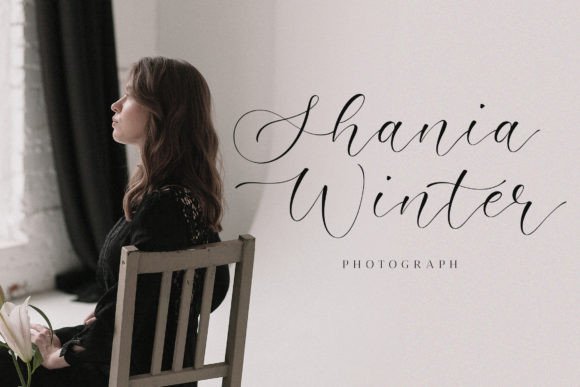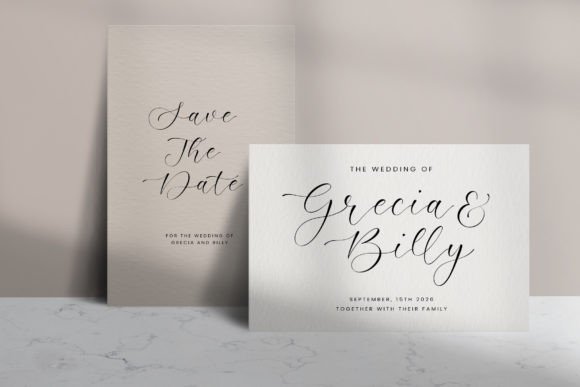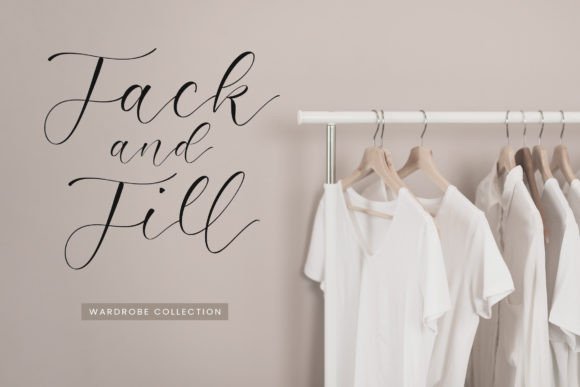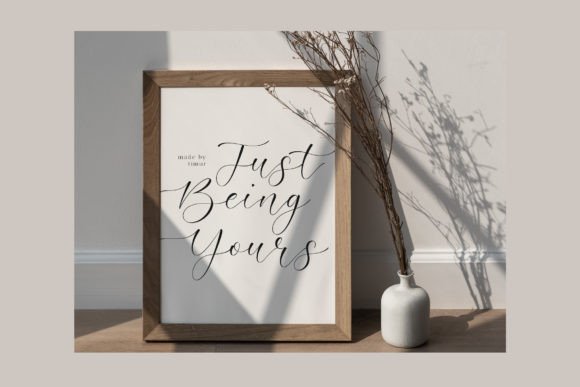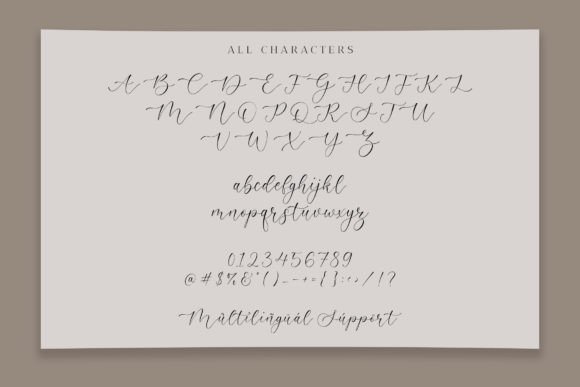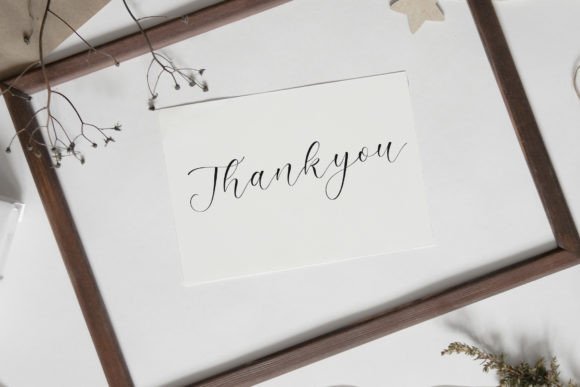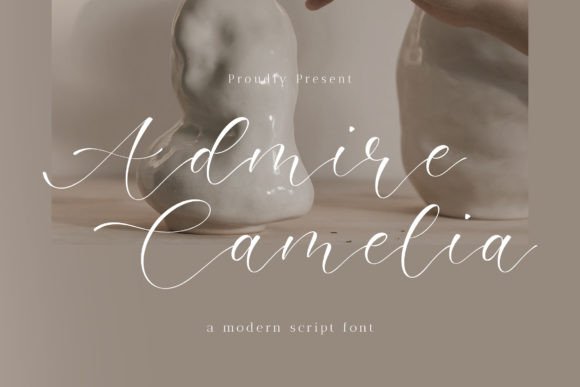
Introducing Admire Camelia: A Stylish Handwritten Script Font
Are you tired of using the same old fonts in your designs? Look no further than Admire Camelia, a beautiful handwritten script font that is sure to elevate your creations. With its delicate, feminine energy, this font is perfect for designers and crafters looking to add a touch of elegance to their work.
What is Admire Camelia?
Admire Camelia is a stylish handwritten script font that is designed to exude a sense of sophistication and refinement. Its delicate lines and curves make it perfect for use in a variety of design projects, from wedding invitations and branding materials to packaging and digital graphics.
Key Features of Admire Camelia
- Handwritten script font: Admire Camelia is a true handwritten script font, with each letter and character carefully crafted to create a sense of fluidity and movement.
- Delicate, feminine energy: This font is perfect for designers and crafters looking to add a touch of femininity to their work. Its delicate lines and curves make it ideal for use in projects where a light, airy feel is desired.
- Versatile: No matter the topic or theme, Admire Camelia is sure to be an asset to your font library. Its elegant design makes it perfect for use in a wide range of projects, from wedding invitations and baby shower announcements to packaging and branding materials.
- Easily readable: Despite its delicate nature, Admire Camelia is surprisingly easy to read, making it perfect for use in both digital and print projects.
Uses for Admire Camelia
So, what can you use Admire Camelia for? The possibilities are endless! Here are a few ideas to get you started:
- Wedding invitations and stationery: Admire Camelia is perfect for use in wedding invitations, save-the-dates, and other stationery. Its delicate, feminine energy makes it ideal for use in wedding and event planning.
- Branding and packaging: This font is also great for use in branding and packaging projects. Its elegant design makes it perfect for use in logo design, product labels, and packaging materials.
- Digital graphics: Admire Camelia can be used to add a touch of elegance to digital graphics, such as social media graphics, blog headers, and email newsletters.
- Crafting and DIY projects: This font is also perfect for use in crafting and DIY projects, such as scrapbooking, card making, and other paper crafts.
Tips for Using Admire Camelia
Here are a few tips for getting the most out of Admire Camelia:
- Pair it with bold fonts: Admire Camelia pairs perfectly with bold, sans-serif fonts. Try pairing it with a font like Arial Black or Helvetica Bold to create a striking contrast.
- Use it in combination with images: This font looks beautiful when used in combination with images, particularly those with a feminine or vintage feel.
- Experiment with colors: Admire Camelia looks great in a variety of colors, from soft pastels to rich jewel tones. Experiment with different colors to find the perfect look for your project.
In conclusion, Admire Camelia is a stylish handwritten script font that is sure to elevate your designs. Its delicate, feminine energy makes it perfect for use in a wide range of projects, from wedding invitations and branding materials to packaging and digital graphics. With its versatility, readability, and elegant design, Admire Camelia is a must-have font for any designer or crafter looking to add a touch of sophistication to their work.